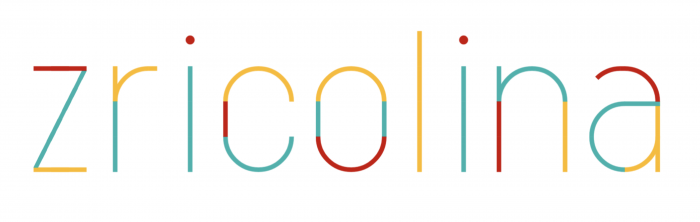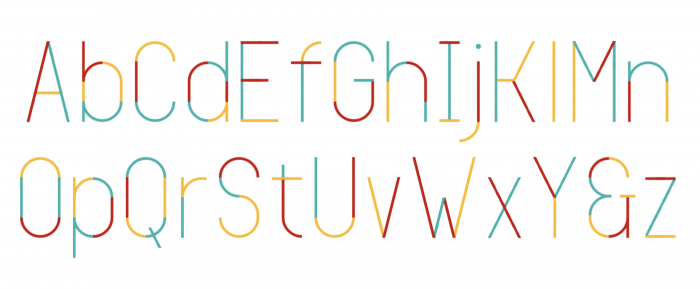
A thin, simple, tricolour font, smooth and pleasant. The "ff" and "tt" ligatures are included in the "fi" and "fl" glyphs and an extra "s" is in the "™" too. Some kerning is still needed.
What a patience to make those diagonals :) I almost always don't bother myself with them. Cute entry!
@kassymkulov: I know, those diagonals... Well, it's done. Thanks a lot for your allways kind words and support, compañero!
I like this one 10/10, I would maybe even more like it just black :-)
So sophisticated. I can't even guess how you achieved this work.
@Peter's last comment got me thinking about what a colour font is. IMHO, a colour font should be a font in which the colour defines the glyphs, so that those glyphs can't exist without colour... (that is, they can't be coloured individually with a graphics program, for example). What do you think about this, fontstructors?
Sure, there should be a reason for it to be a color, otherwise it's best to keep fonts black. And it's best to keep the colors the designer chose (cause he/she chose it carefully and witha certain reason).
I did not mean it like the colors here did not have function, just that the strong contrast between lighter and darker segments somehow breaks the fine glyph contours for me.
I wrote a comment here, but it seems to have been lost somewhere. Nice colour work. I don't know how you did the thin line and perfect curves. It must have been some trick with filters. 10/10
Dear @Frodo7: Thank you for your kind words, support, and generous votes, Maestro. What beautiful fonts you've submitted to the Comp (as usual), let me tell you! As for this font, there are no tricks, just 2:2 filters and some composite bricks. Here they are. It's always a reward to hear your opinion about my works, you know.
The undertaking of making a font this thin by itself is impressive, let alone the coloring. 10/10
@Noah F. Ross: Thanks so much one more time, pal. It was really the thin blocks of macaroni that carried the weight of this design. If you like it, you can try an usable black and white version of the font by downloading it in .ttf or .otf format.